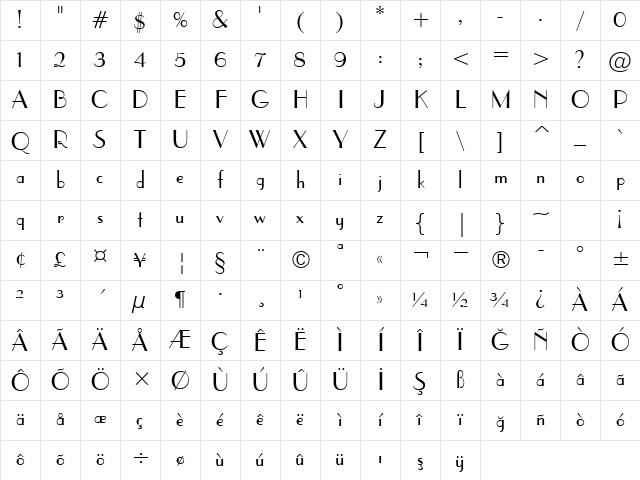
00524 Regular
Design Context for 00524
00524 is a composed and adaptable typeface that performs quietly and consistently across a wide range of design contexts.